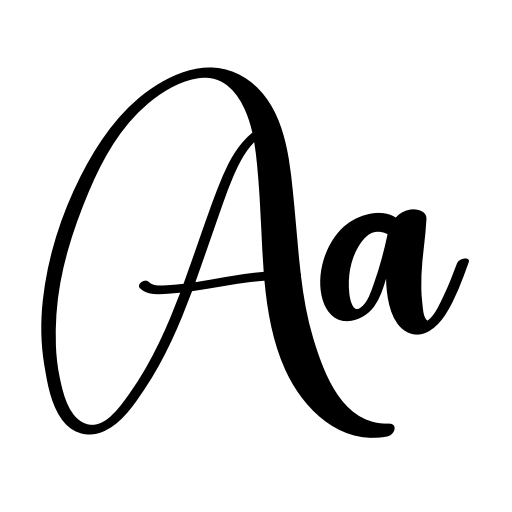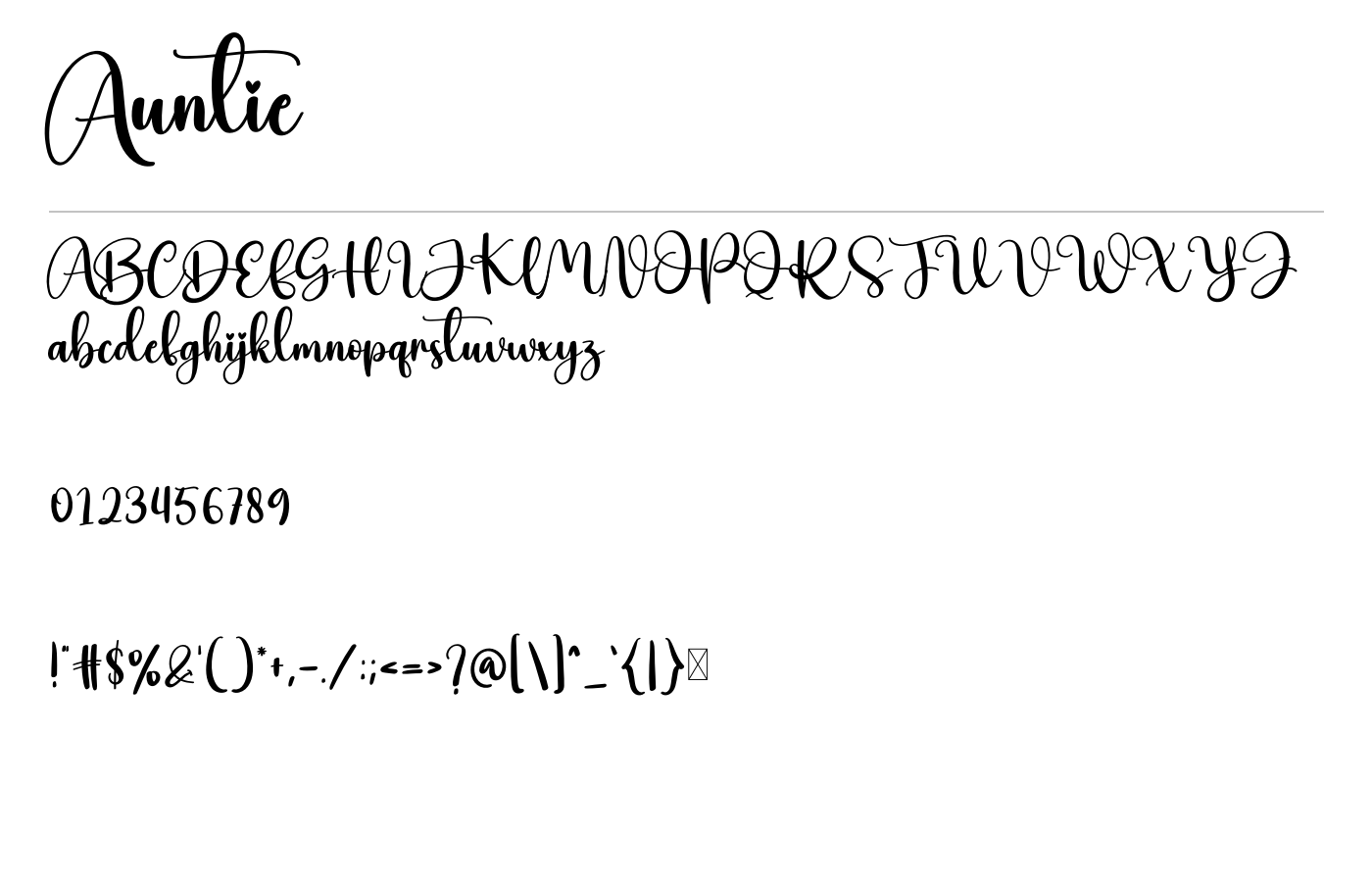
Auntie Font is a charming and elegant script typeface with a playful, handwritten feel characterized by its smooth, flowing strokes and delicate swashes. Its moderate weight and high contrast combined with whimsical letterforms and unique heart-shaped details convey warmth and friendliness, making it perfect for branding, invitations, and creative projects that aim to evoke a personal, stylish touch. This font works beautifully for logos, greeting cards, and social media graphics where a touch of elegance and approachability is desired.
Auntie Font
About Auntie Font